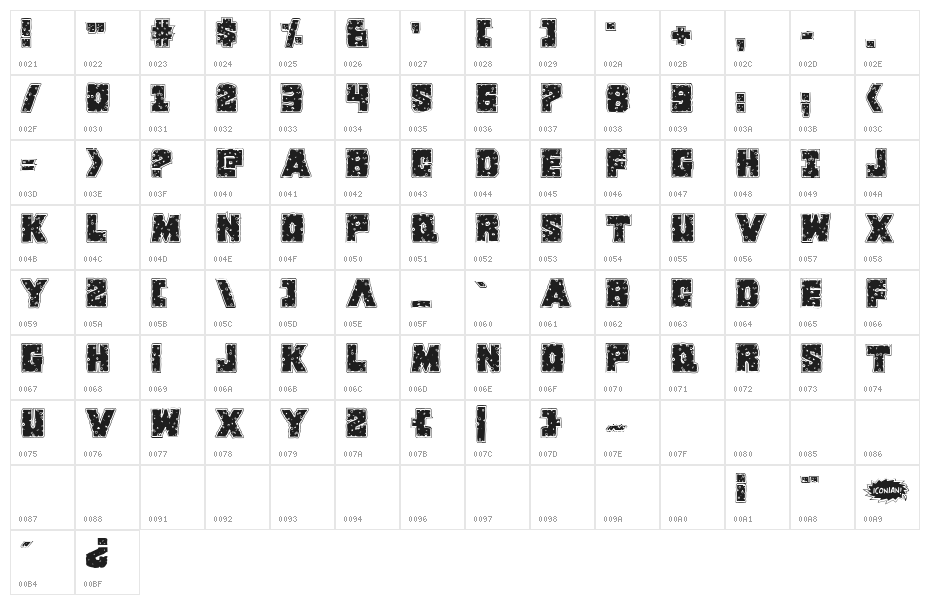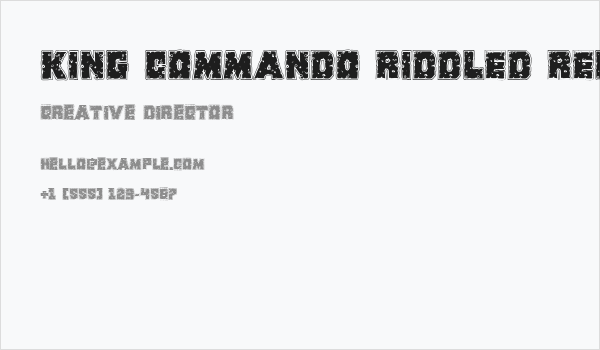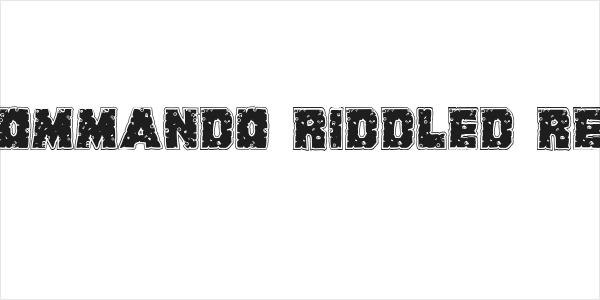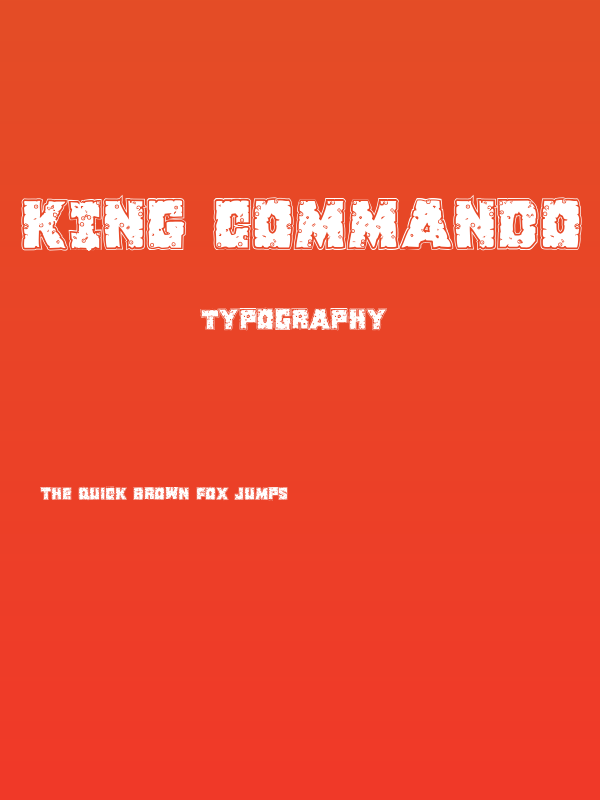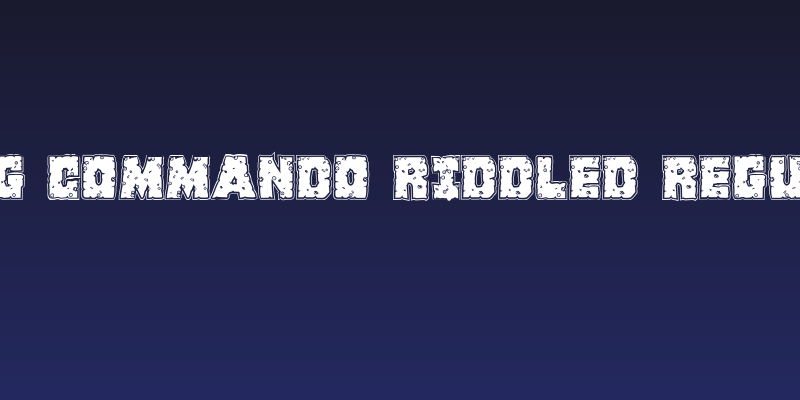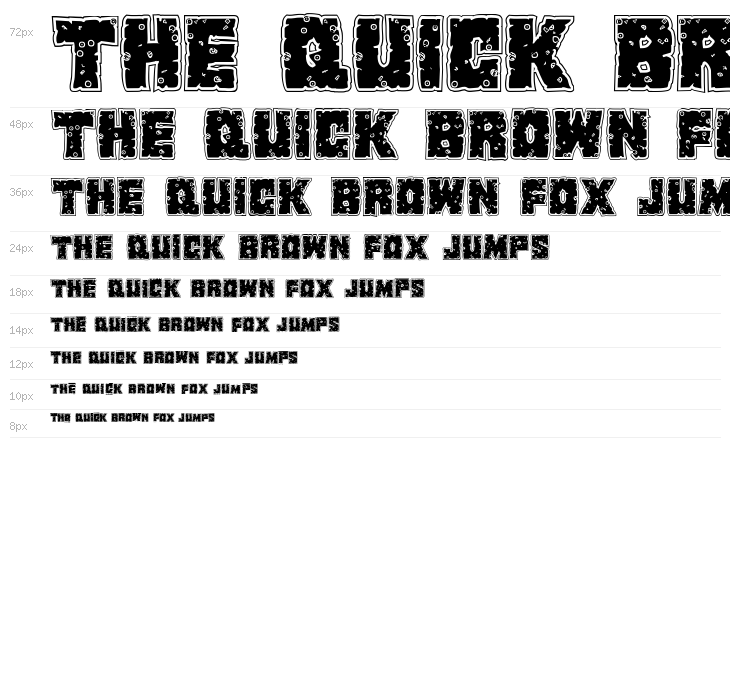
King Commando Riddled Regular Font
King Commando Riddled Regular Description
This font features a bold, rugged style with a distressed, riddled appearance that gives it a unique, textured look. The characters are heavily stylized with a blocky, robust form, making them stand out with a commanding presence. The design includes irregular holes and marks throughout each letter, number, and symbol, adding a rough, industrial feel. The font's boldness and distinctive texture make it ideal for projects that require a strong visual impact. Its decorative nature is perfect for creating eye-catching headlines, posters, and branding materials that need to convey a sense of toughness or edginess.
| Proposed Projects | Ideal for posters, branding, headlines, and any project needing a bold, industrial look. |